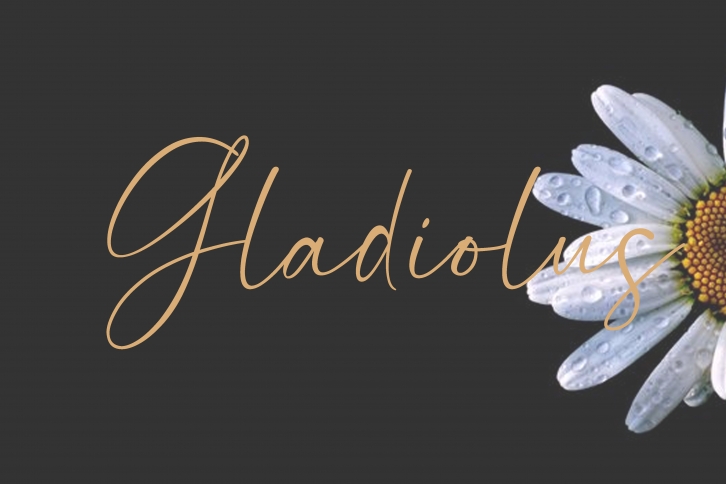
Gladiolus is a beautiful script font.
You can use it for various projects, such as blog posts, logos, branding, ads, invitations, greeting cards, planners, photo albums, decorations, and much more.